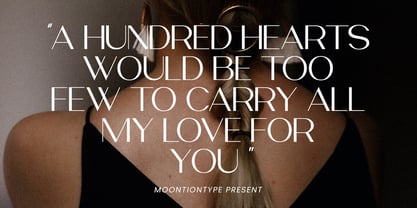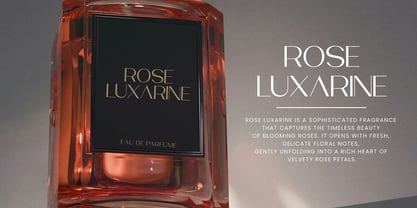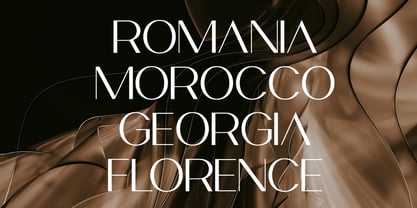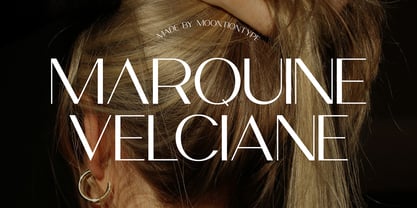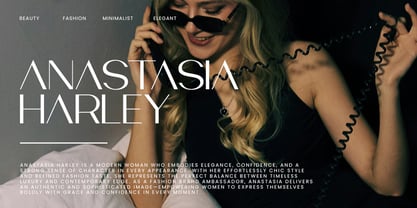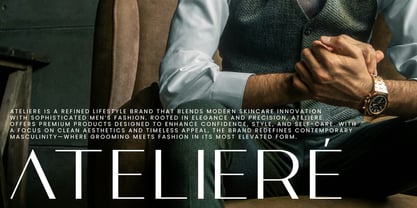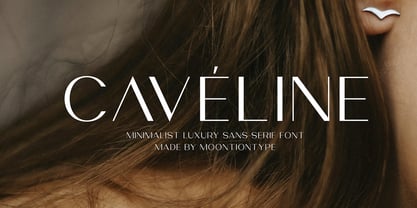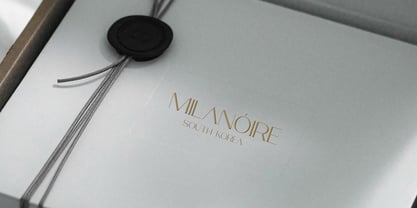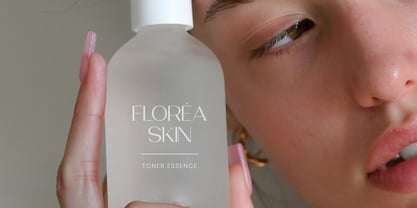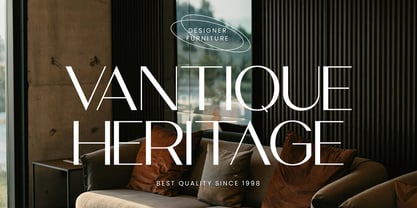
Caveline
by Moontiontype
The Caveline Font Family was designed by Dinda Nur Dwiyanti and published by Moontiontype. Caveline contains 1 styles. More about this family
Cavéline is a minimalist luxury sans serif font designed to bring elegance and sophistication to your creative projects. With its clean lines, refined proportions, and modern aesthetic, Cavéline is perfect for high-end branding, fashion editorials, logos, and premium designs. This typeface blends contemporary minimalism with a touch of luxury, making it ideal for designers who want to create a timeless and stylish visual identity. Perfect For Fashion branding & logos Skincare & beauty brands Editorial layouts & magazines Social media content Packaging design Wedding & luxury invitations Features Elegant & minimalist sans serif style Uppercase & lowercase letters Numbers & punctuation Clean, modern, and highly readable Perfect for luxury and high-end projects Cavéline is more than just a font—it’s a statement of style. Designed to elevate your brand with a modern luxury feel, it helps your work stand out with effortless elegance. Thank You Moontiontype
Designers: Dinda Nur Dwiyanti
Foundry: Moontiontype